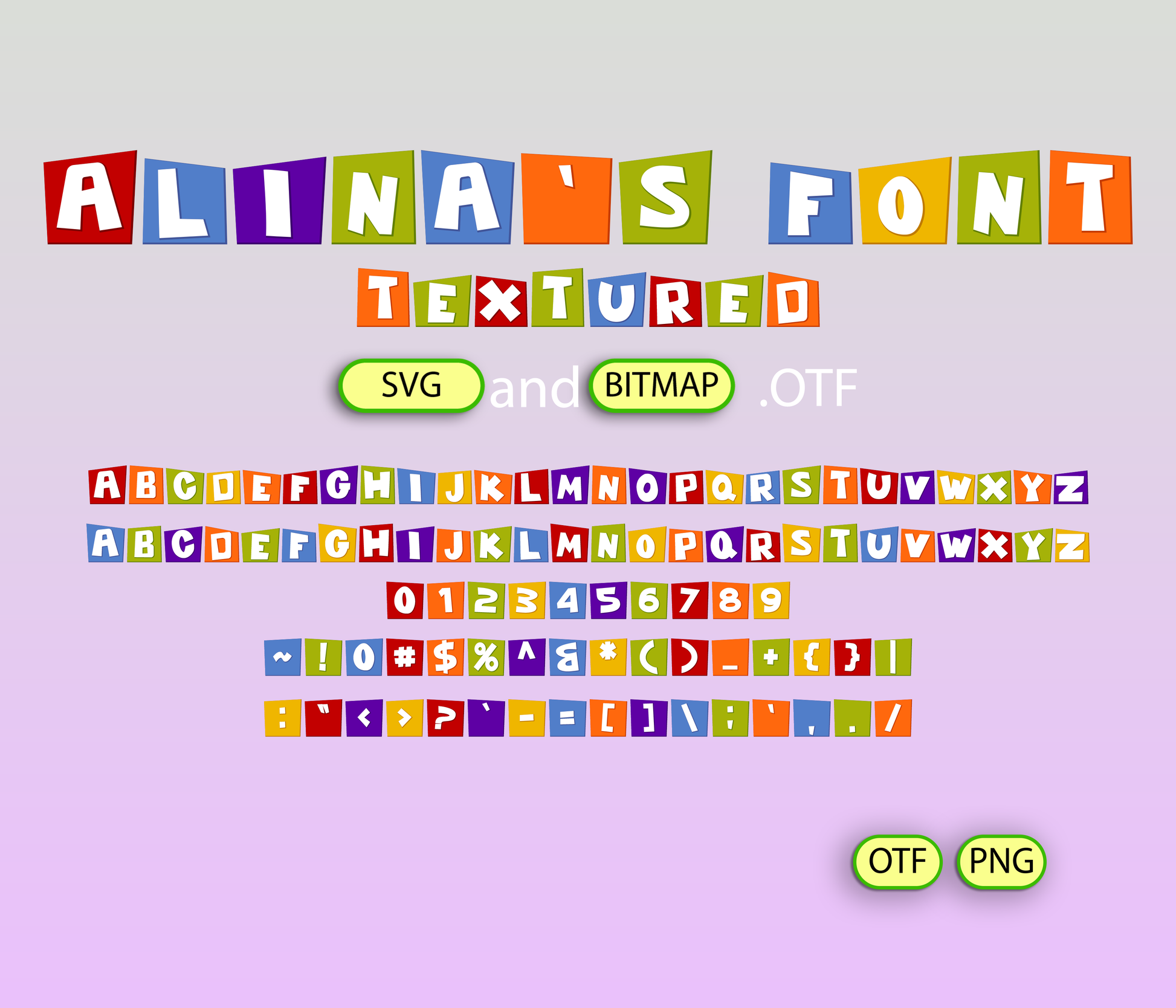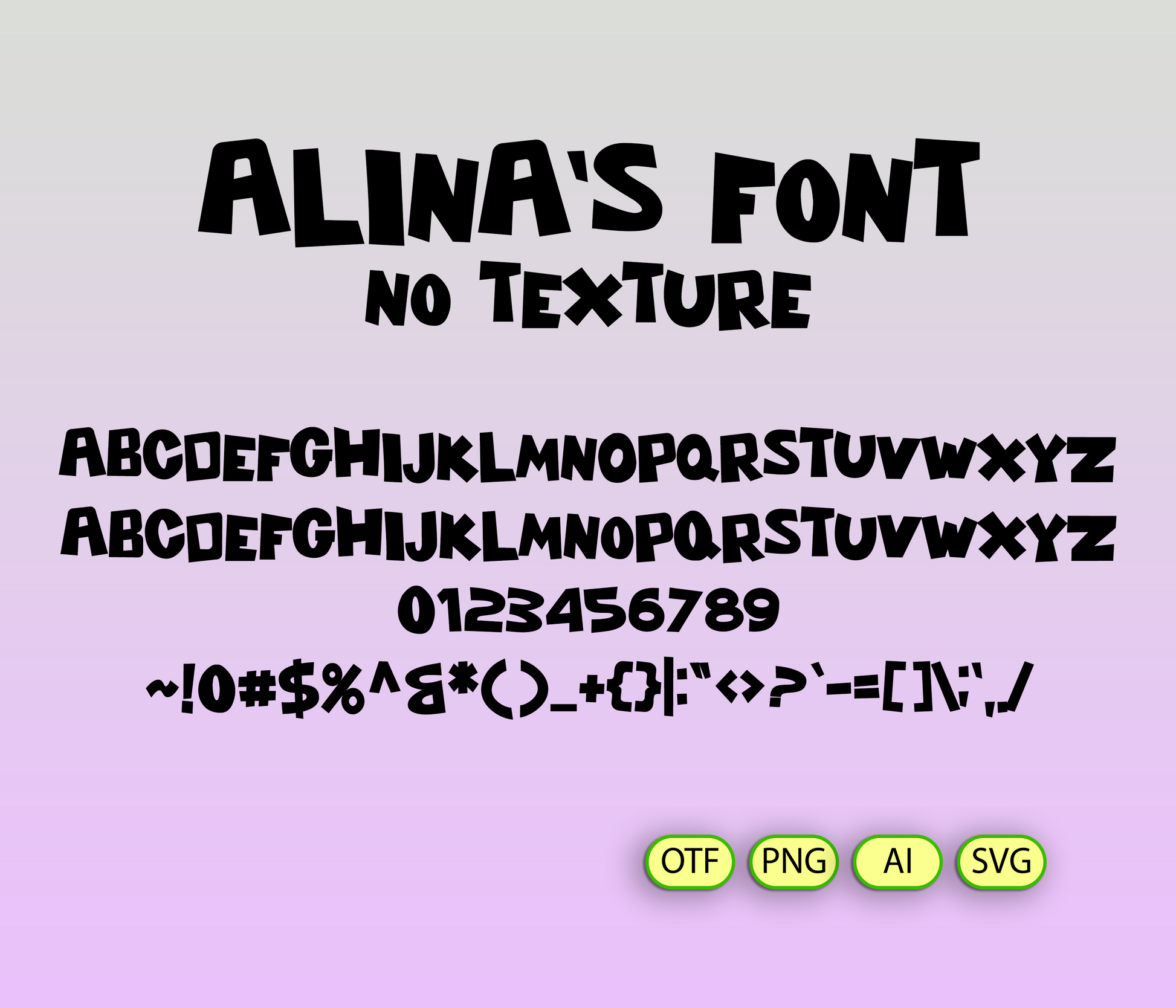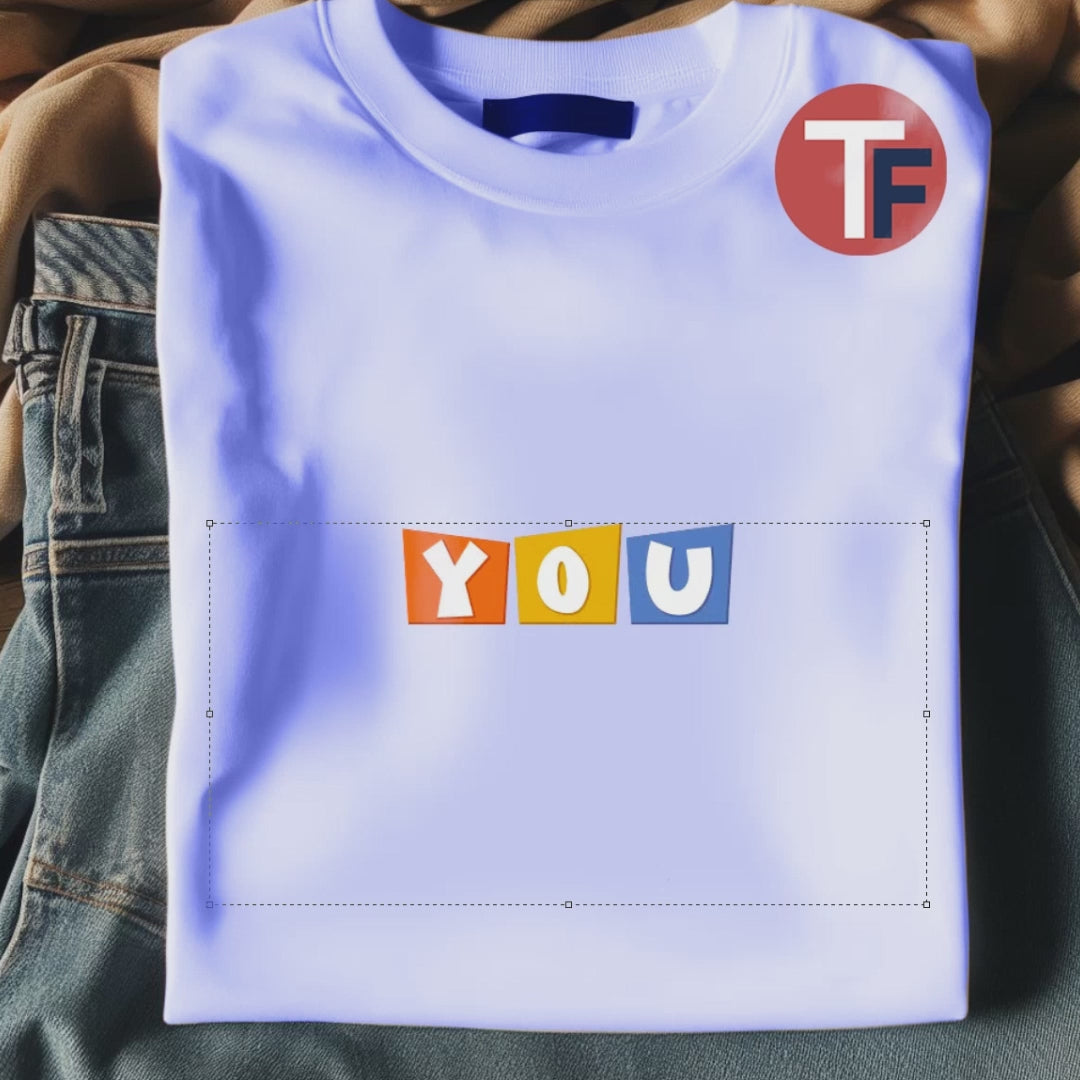
Joyful Friends Font Textured
Bring Joy to Your Designs with the Joyful Friends Font
Step into the colorful and playful world with our specially designed Joyful Friends-inspired font, capturing the essence of beloved animated series. Perfect for fans, event planners, and designers looking to add a touch of whimsy and fun to their projects, this font captures the cheerful and innocent spirit of playful characters and their friends. Whether creating event invitations, designing themed merchandise, or crafting digital content, our Joyful Friends font ensures your projects resonate with charm and joy.
Our Joyful Friends-inspired font features rounded, friendly characters with a playful, childlike design that reflects the bright and engaging world of the series. This versatile font is ideal for a variety of applications:
- Event Invitations: Perfect for creating delightful invites for children's parties, playdates, or themed events.
- Merchandise Design: Ideal for designing t-shirts, posters, and accessories that capture the essence of playful adventures.
- Digital Media: Enhance websites, blogs, and social media content with cheerful headers and graphics.
- Educational Materials: Use in presentations, worksheets, and educational content focused on early childhood learning and fun.
- Personal Projects: Add a whimsical touch to scrapbooking, DIY crafts, or home decor inspired by playful characters' adventures.
To ensure maximum usability and flexibility, our Joyful Friends-inspired font includes both textured and non-textured variants. The non-textured version is particularly beneficial, ensuring compatibility with all types of software, including Canva. This feature allows users of all skill levels to seamlessly incorporate the font into their designs, enhancing accessibility and ease of use across various digital and print platforms.
Many people seek out a Joyful Friends Font generator online to mimic this look. Steer clear! No font generator can match the quality of this Joyful Friends Font, which comes in two versatile versions: a textured colored font and a simple font. This is particularly beneficial if you plan to use it with a cutting machine.
Our Joyful Friends font not only pays tribute to beloved children's series but also empowers you to infuse your designs with playful and joyful spirit. Whether crafting promotional materials, designing unique merchandise, or adding a whimsical touch to personal projects, this font allows you to communicate with lighthearted and endearing essence. Ready to bring a smile to your creative projects? This font is your key to adding a splash of fun and color to every design.